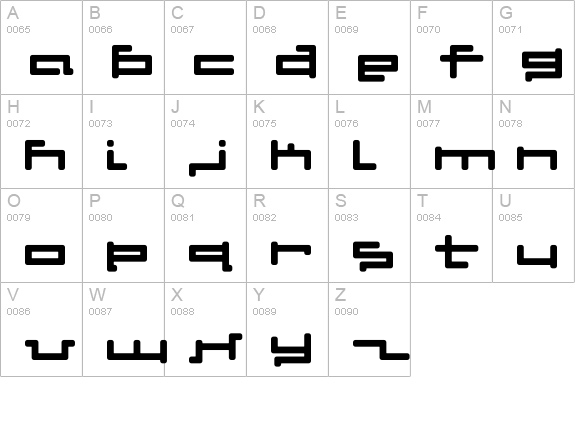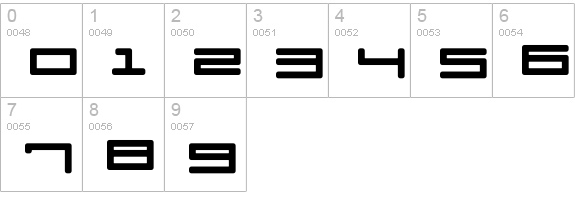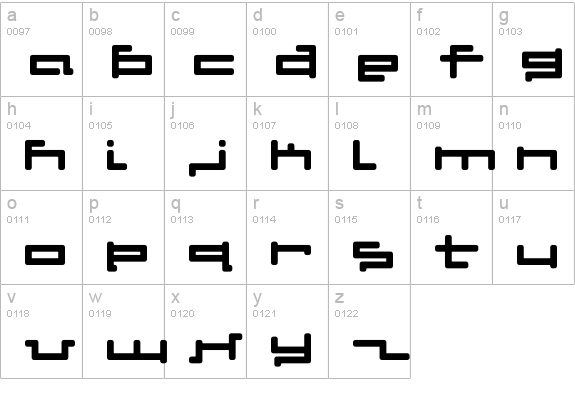
V5 Cuadra2 Round Font Details
V5 Cuadra2 Round font is a stunning display typeface that effortlessly combines elegance and playfulness. With its rounded and bold letterforms, this font exudes a sense of friendliness and approachability, making it perfect for a wide range of design projects. Whether you're working on branding materials, advertising campaigns, or even personal projects, V5 Cuadra2 Round font will bring a touch of modernity and sophistication to your designs. Its smooth curves and clean lines create a harmonious visual experience that captivates the eye and leaves a lasting impression. What makes V5 Cuadra2 Round font even more remarkable is the fact that it is completely free to download at FontsMarket.com. This means you can enhance your creative projects without any cost or restrictions. Whether you're a professional designer or just starting out, this font offers you the opportunity to experiment and explore your creativity without any limitations. The versatility of V5 Cuadra2 Round font is another aspect that sets it apart. It can be used in various design contexts, from logos and headlines to posters and packaging. Its bold presence ensures that your message will be communicated effectively and attract attention. Designed with meticulous attention to detail, V5 Cuadra2 Round font offers a wide range of characters and glyphs, allowing you to customize your designs and add a personal touch. Its extensive language support ensures that you can use this font in different regions and communicate your message effectively to diverse audiences. In conclusion, V5 Cuadra2 Round font is a visually stunning and versatile typeface that will elevate your design projects to new heights. With its elegant and playful nature, it adds a touch of sophistication to any composition. And the best part? It's freely available to download at FontsMarket.com, providing you with the opportunity to enhance your designs without any financial constraints. So why wait? Download V5 Cuadra2 Round font today and unleash your creativity.